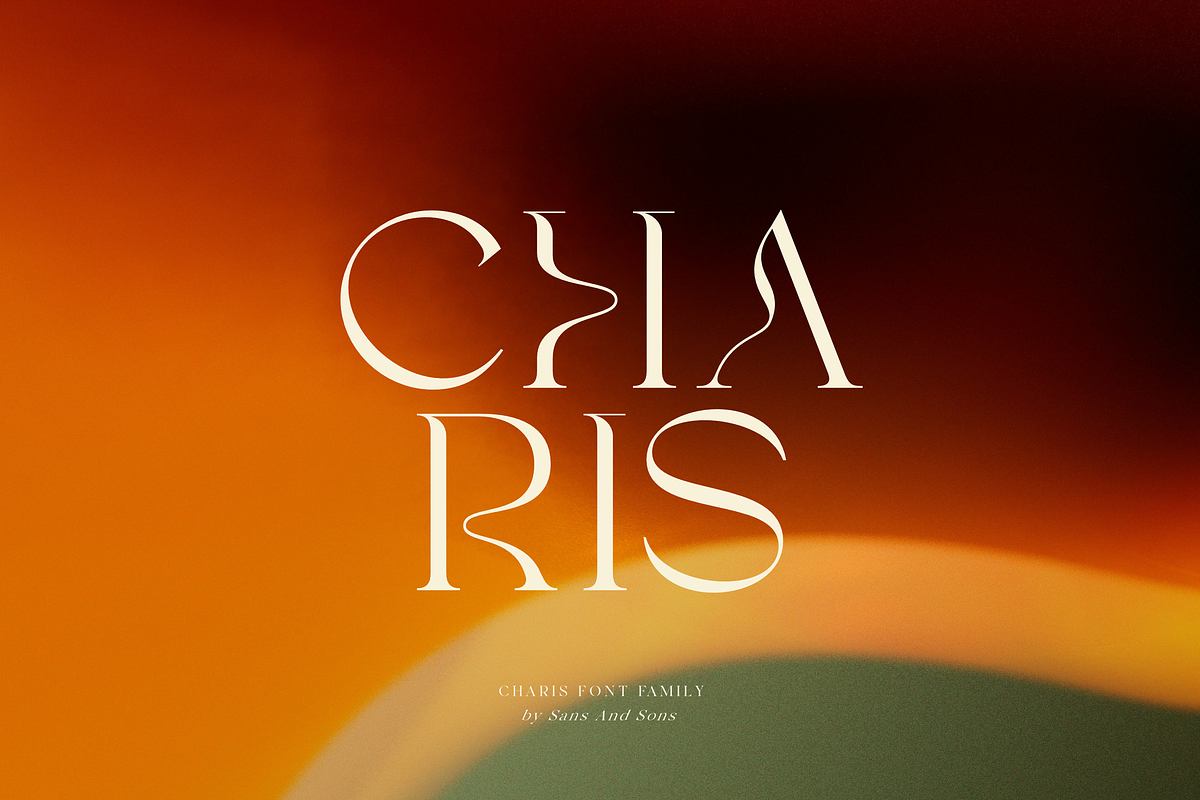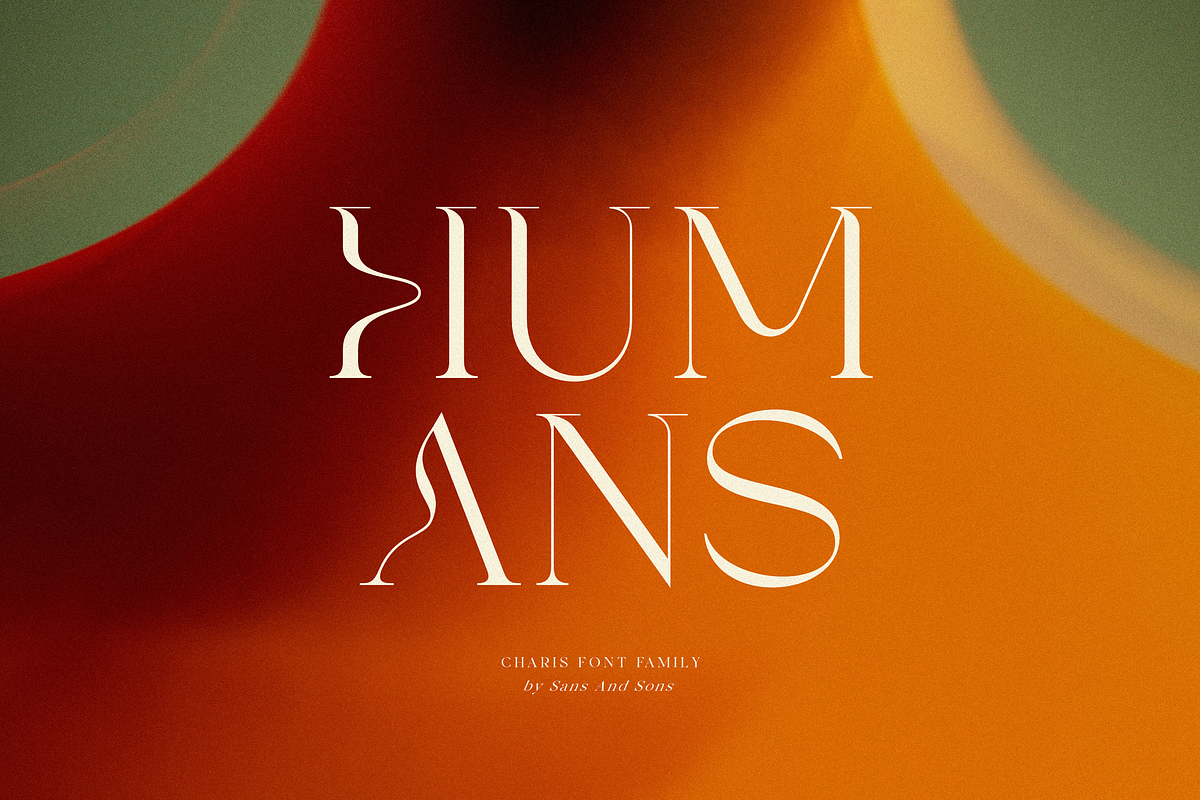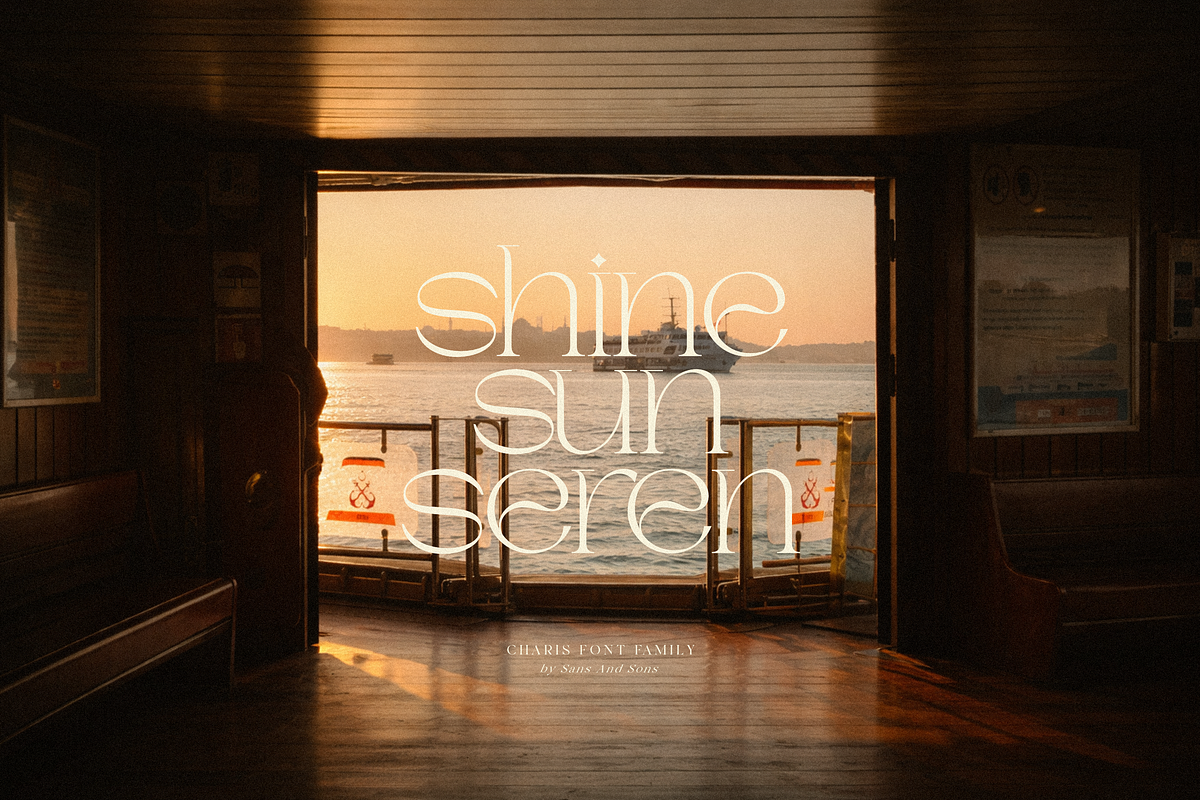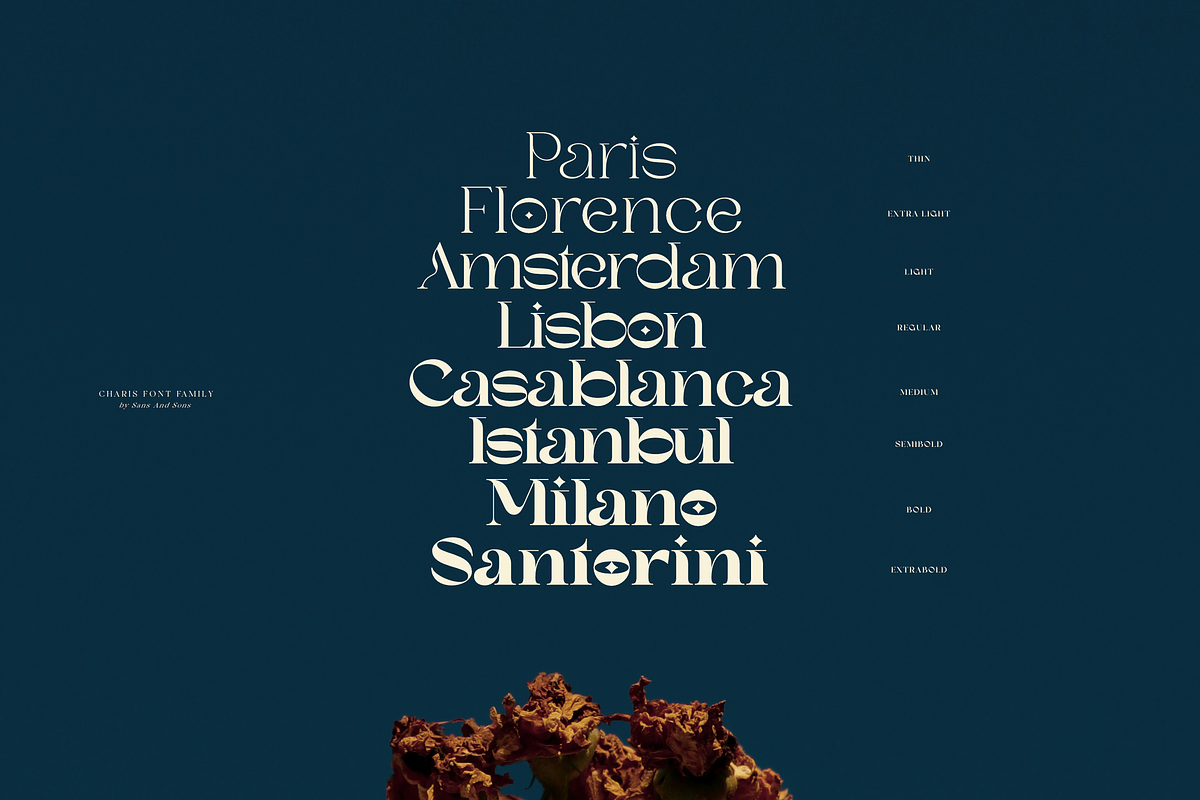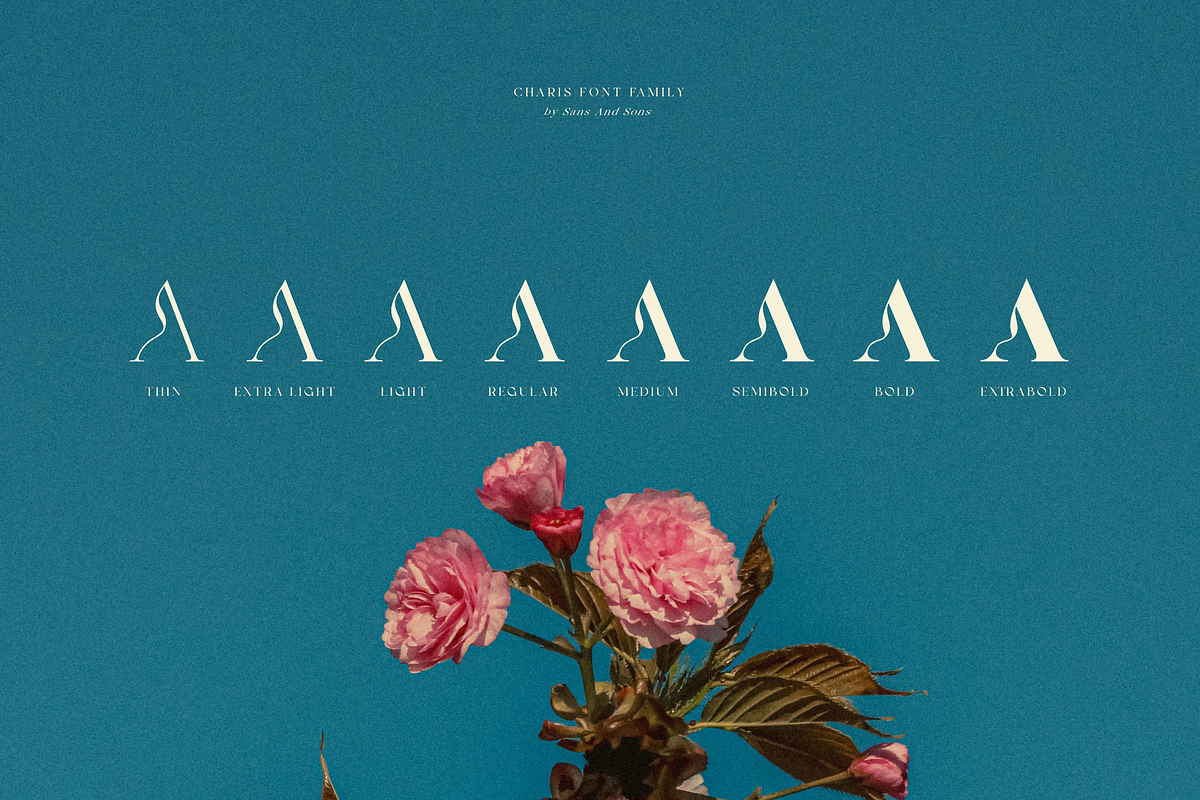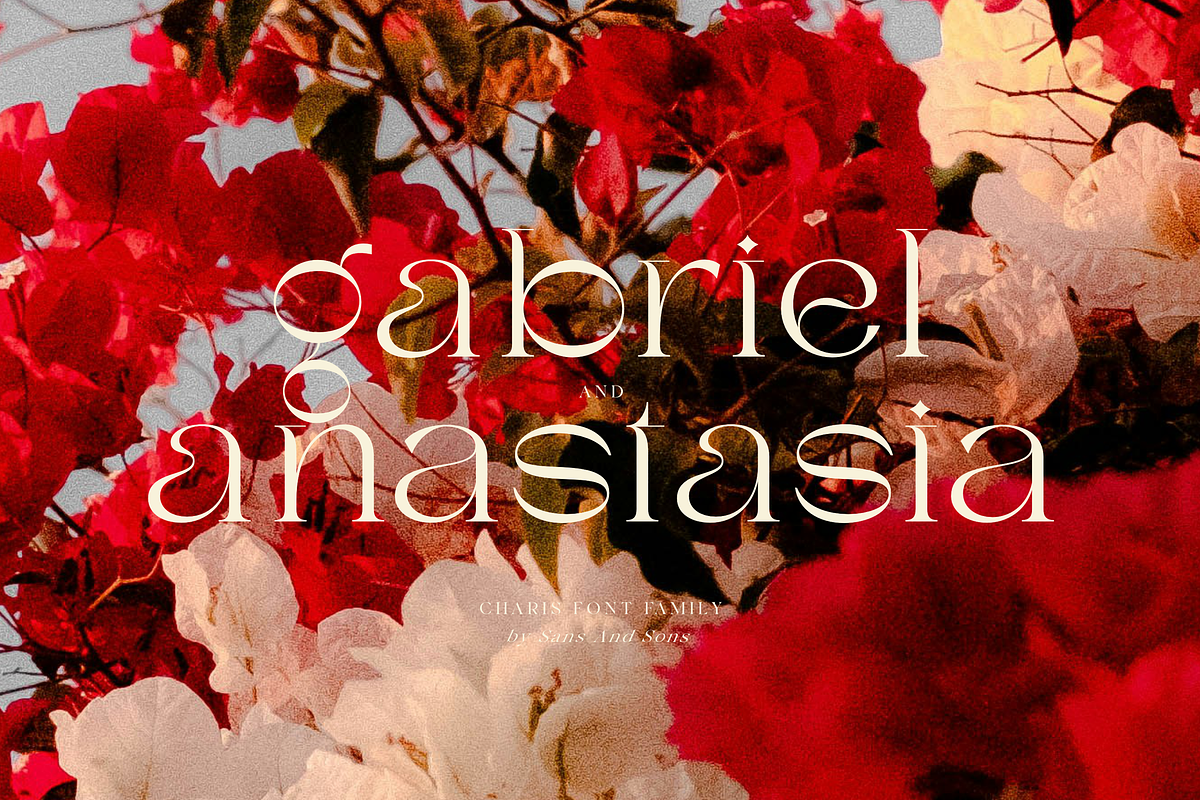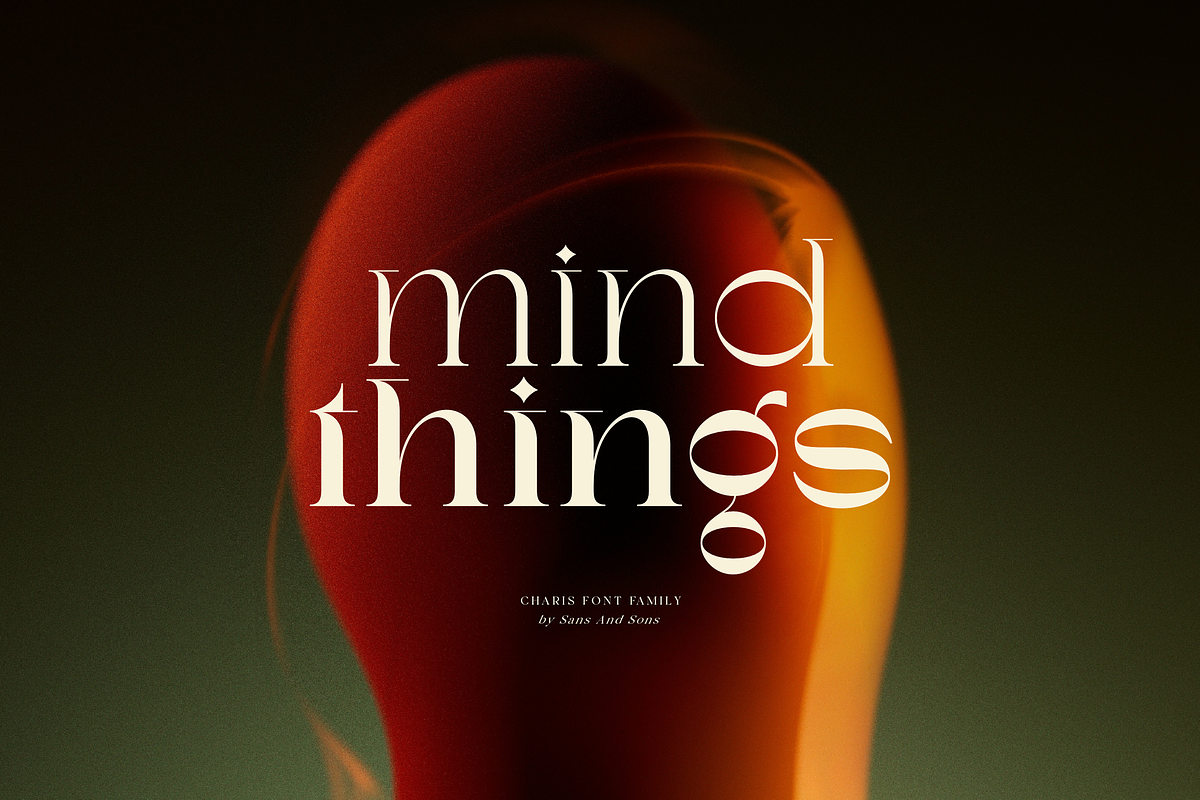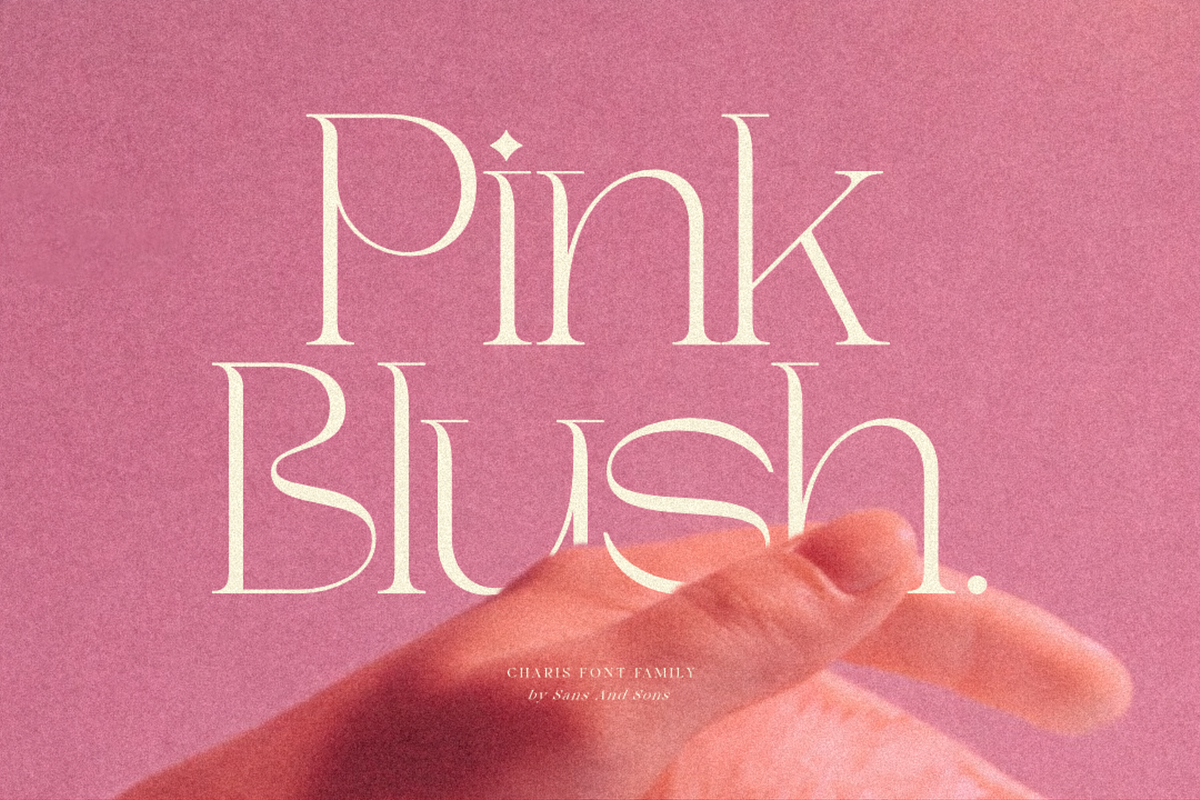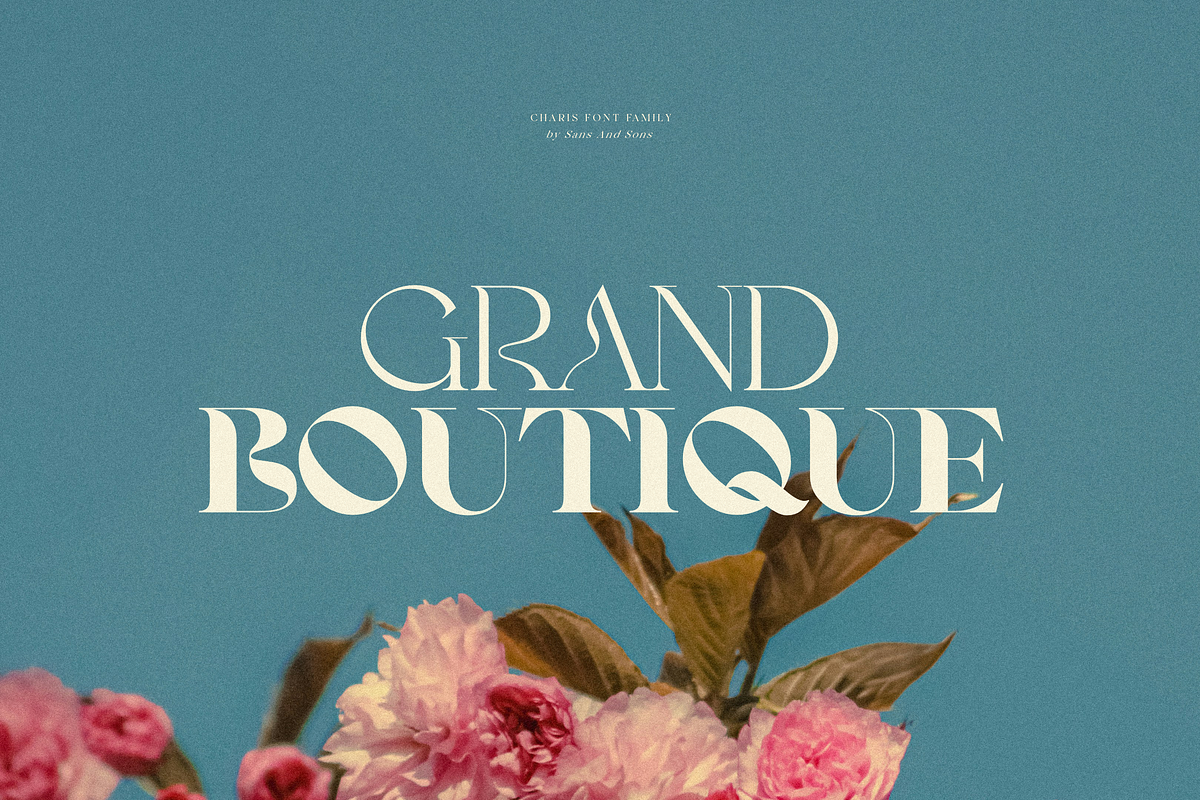
SNS Charis Font Family
SNS Charis – Elegant Serif Font Family
SNS Charis is a soft and timeless serif font family designed for elegance and versatility. With gentle contrast and graceful curves, Charis delivers a calm, refined look that works beautifully across modern and classic designs.
Available as a complete family with 8 styles from Thin to ExtraBold, Charis allows designers to create consistent and harmonious typography for branding, editorials, logos, packaging, invitations, and social media.
Perfect for both print and digital use, SNS Charis blends subtle sophistication with everyday readability.
Why You’ll Love SNS Charis
A soft serif design with a timeless and elegant feel
Balanced contrast and smooth curves for refined readability
Versatile family system, perfect for consistent typography
Ideal for both modern editorial layouts and classic branding
Works beautifully across print, digital, and creative platforms